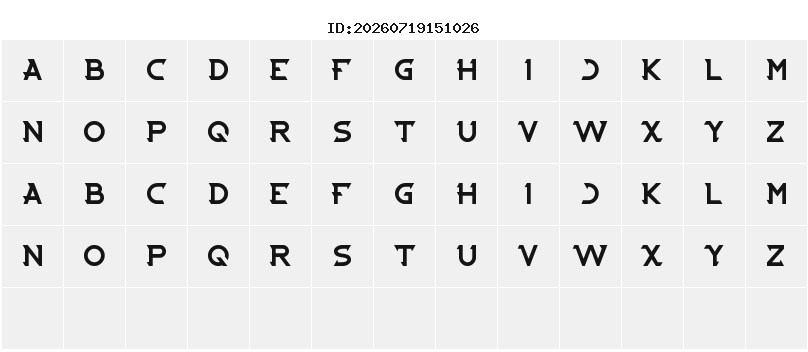
• Font Name: CYBERTOOTH
About CYBERTOOTH.ttf
CYBERTOOTH.ttf is a modern, elegant sans-serif font designed for ultimate readability and visual harmony. Perfect for branding, headlines, web design, and print materials.